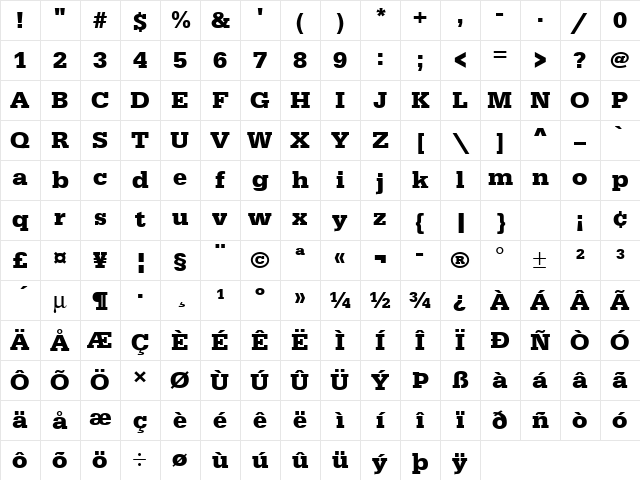
URWEgyptienneTWid Bold
URWEgyptienneTWid Family
URWEgyptienneTWid Bold
Design Context for URWEgyptienneTWid
URWEgyptienneTWid is a composed and adaptable typeface that performs quietly and consistently across a wide range of design contexts. Its bold stroke weight gives it real presence on the page.